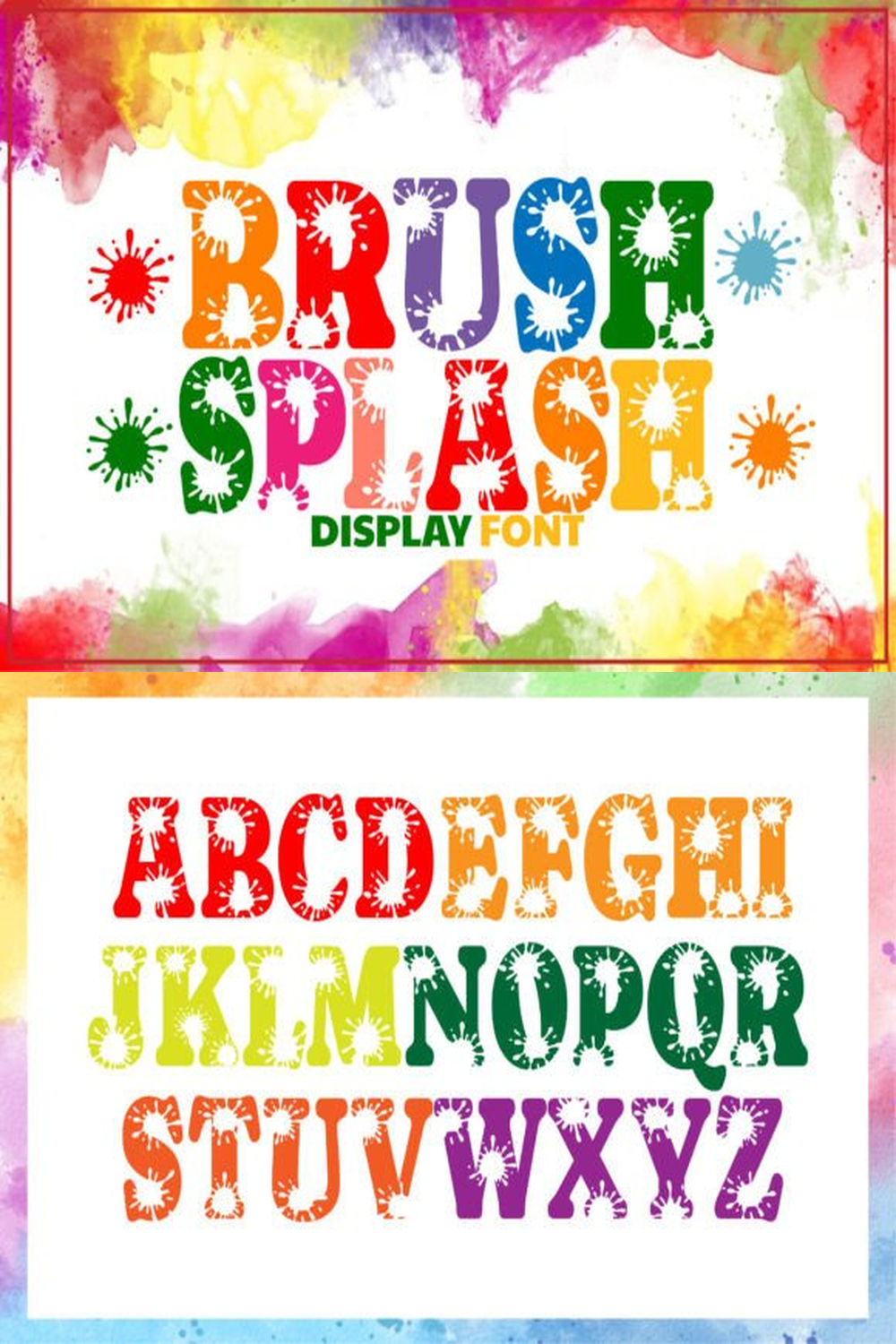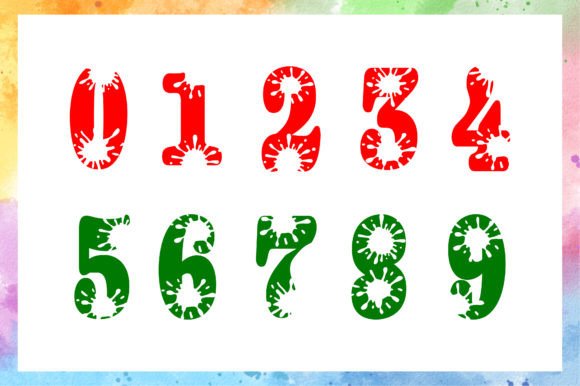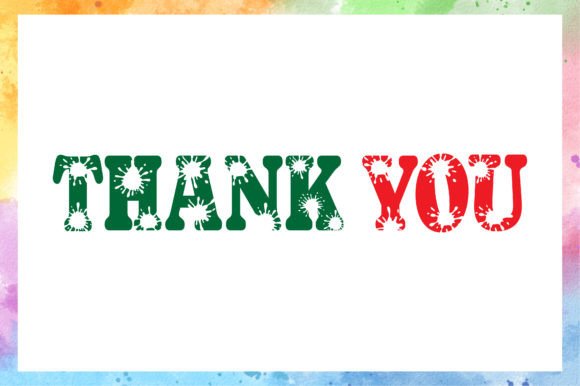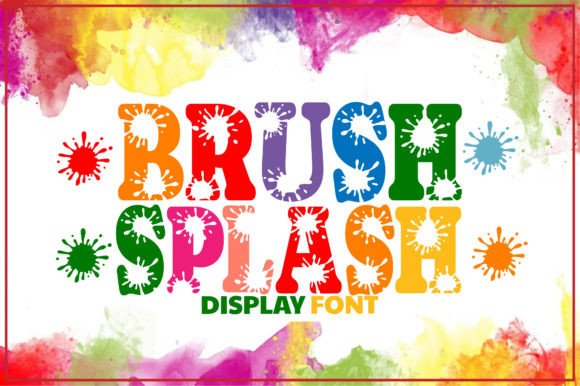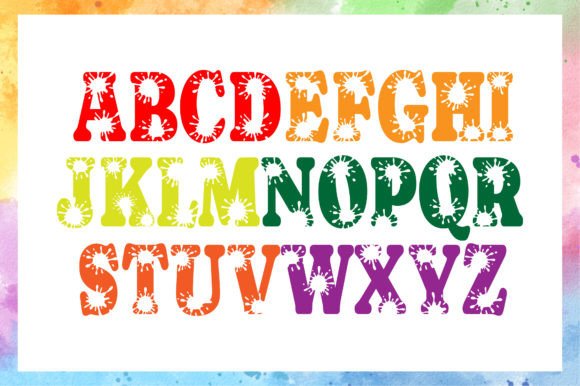
Brush Splash Font
About the Brush Splash Font
The Brush Splash Font offers a perfect balance of form and function for your design needs. Brush Splash is a dramatic display font. It is perfectly suitable for any design or crafty idea! Add it confidently to your projects and you will love the results!